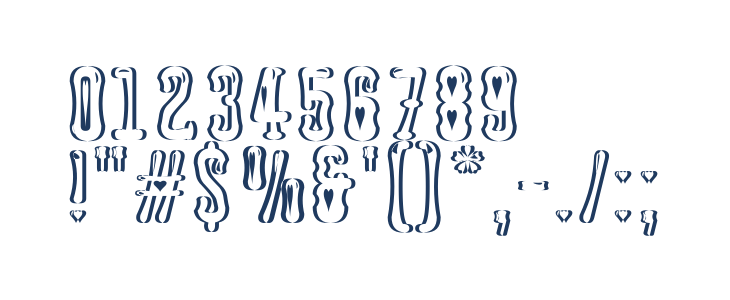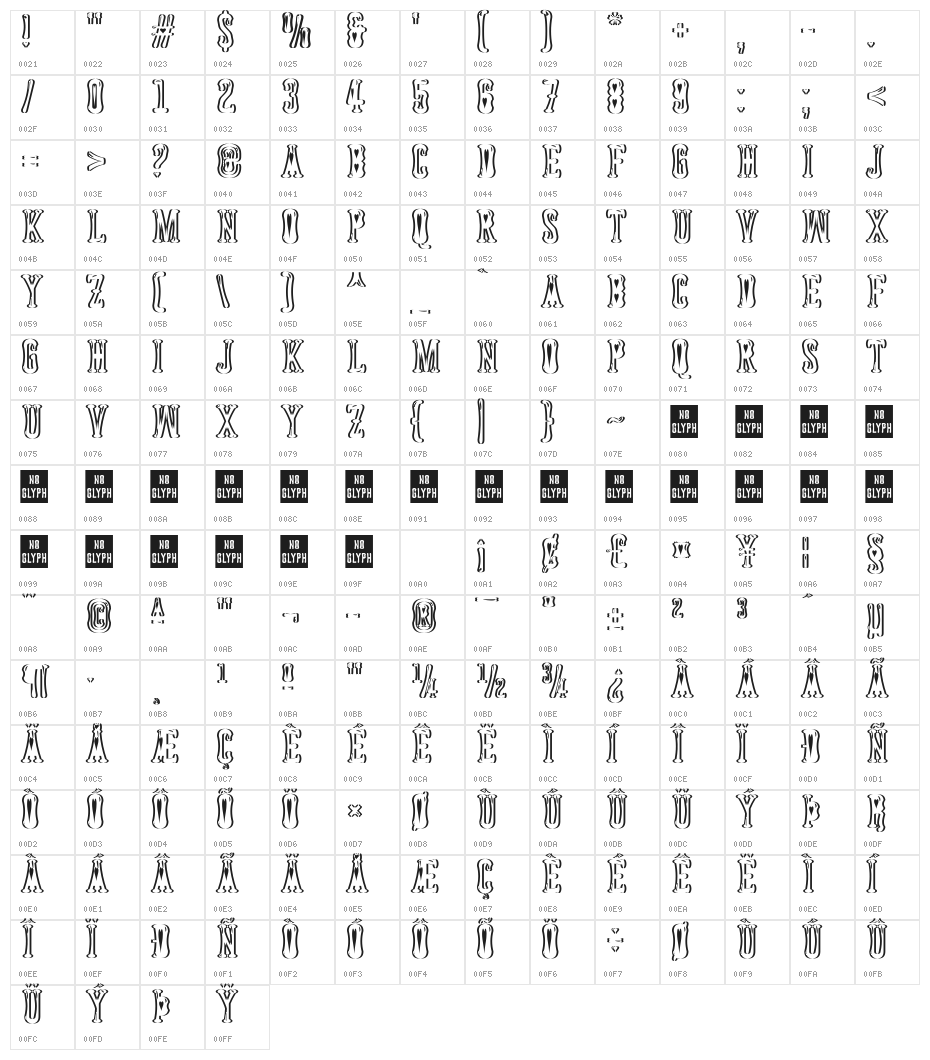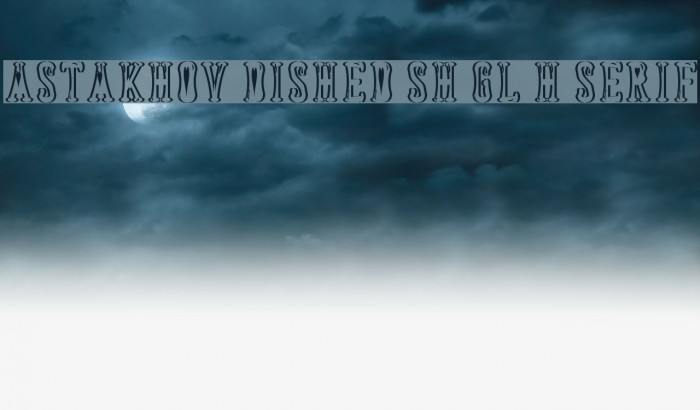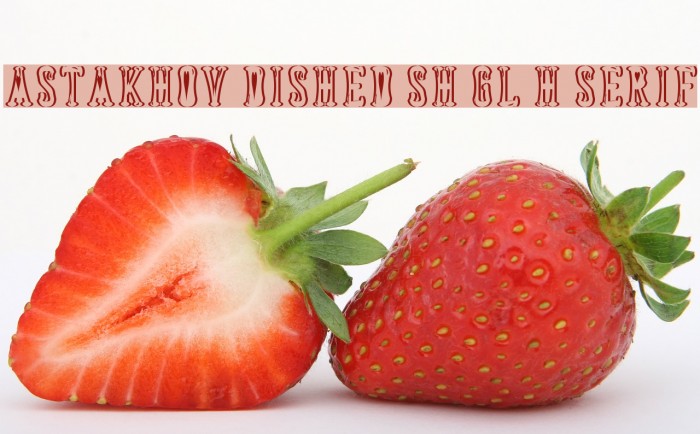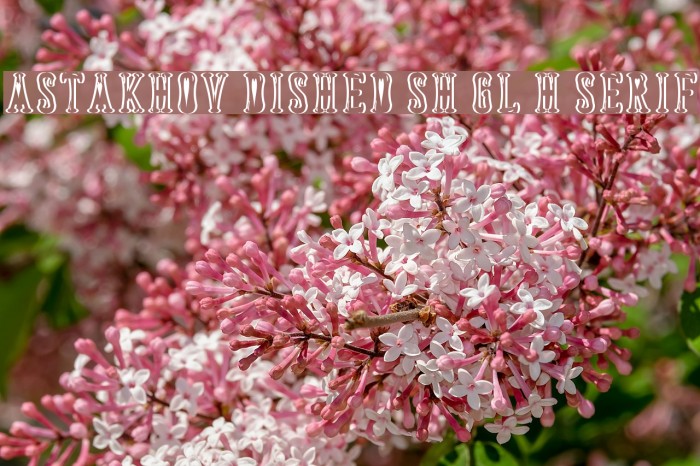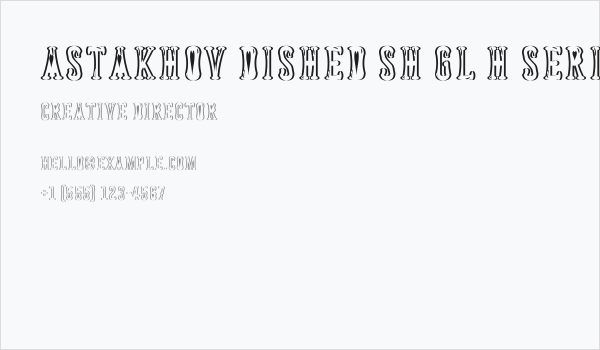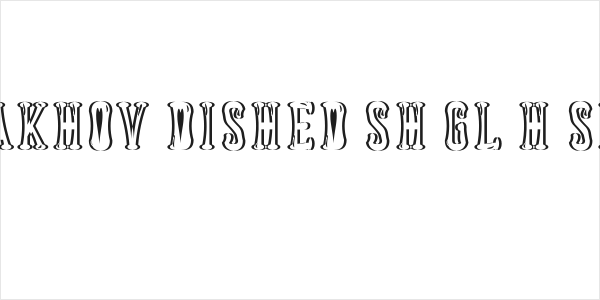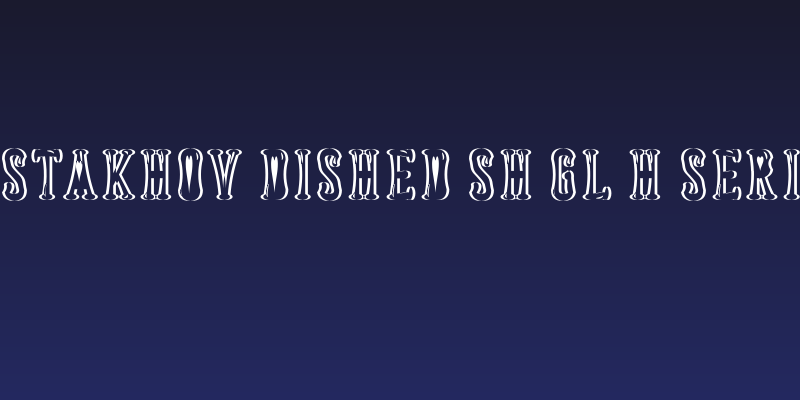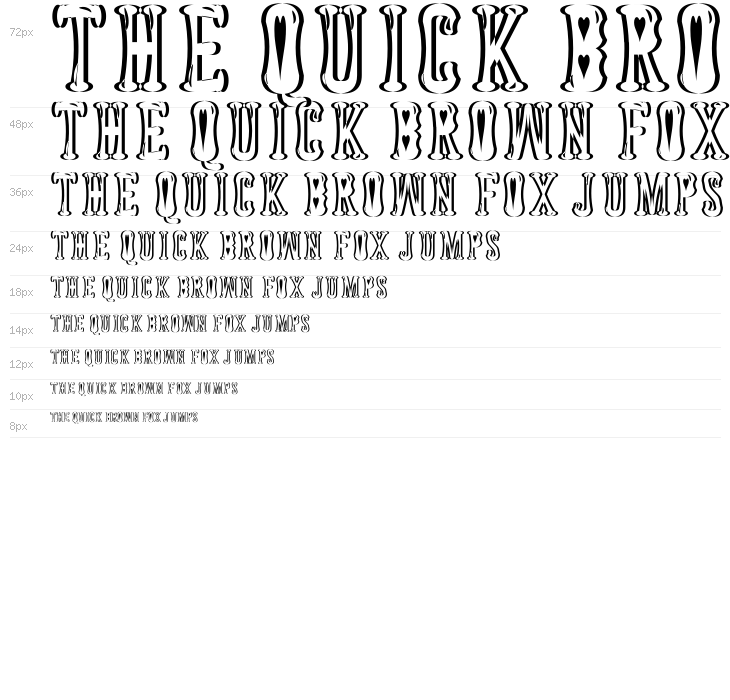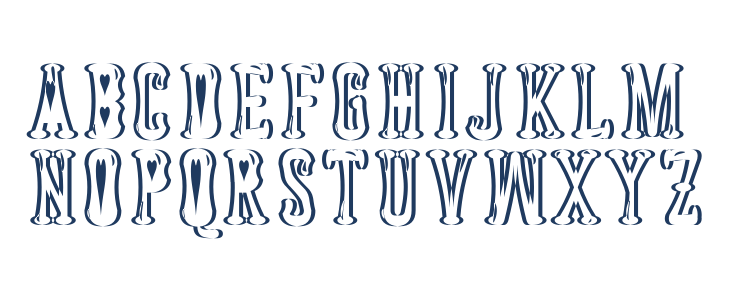
Astakhov Dished Sh Gl H Serif Font
Astakhov Dished Sh Gl H Serif Description
This font features a unique and decorative style, characterized by its bold and ornate letterforms. Each character is adorned with intricate heart-shaped cutouts, adding a playful and whimsical touch. The font maintains a consistent stroke width, giving it a solid and impactful appearance. The uppercase and lowercase letters are designed with a similar aesthetic, ensuring uniformity across the typeface. The numerals and special characters follow the same decorative theme, making this font suitable for creative and eye-catching designs. Its distinct style makes it ideal for projects that require a bold statement.